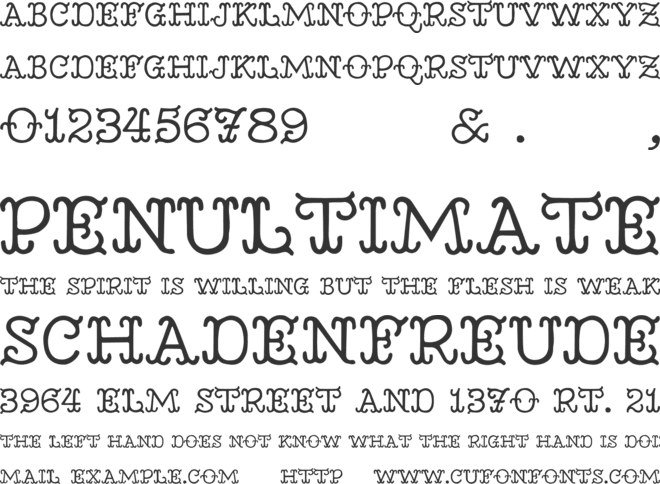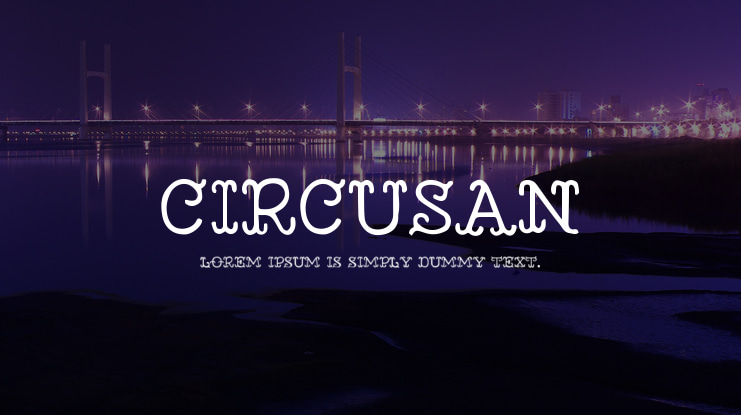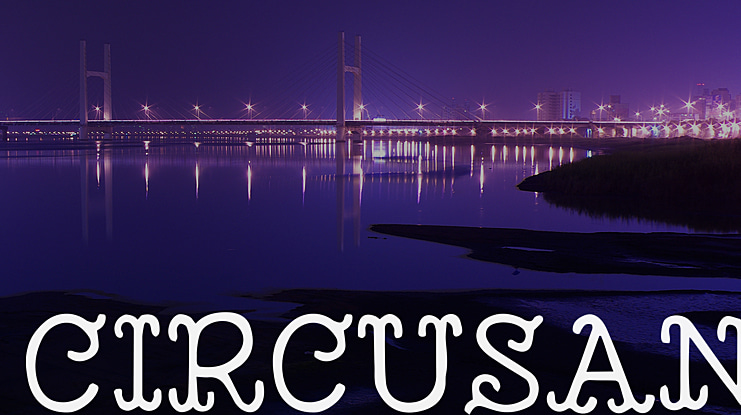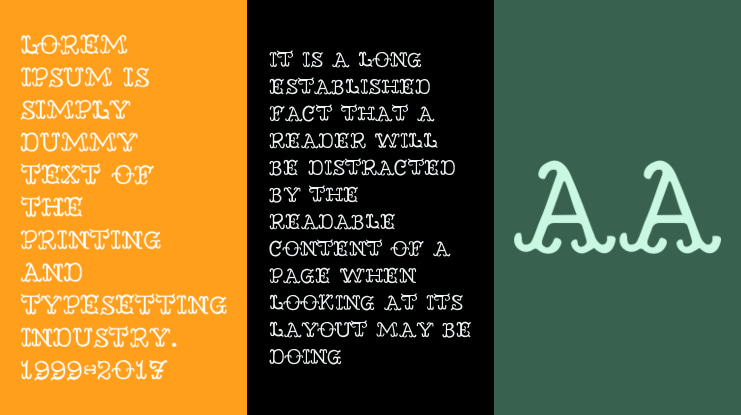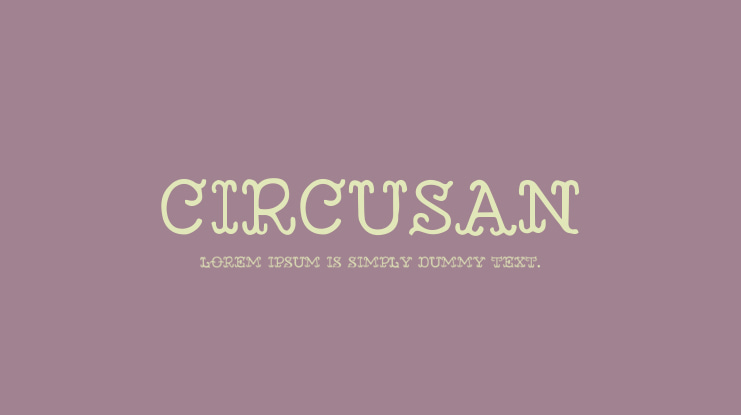
Circusan Font
Akufadhl
This Circusan typeface are designed by @akufadhl in 4 hours as a challange and protest to many instant and bad fonts out there.
and to show you, that a good and great typefaces aren’t created in such short period.
great things take times and effort, a lot of effort.